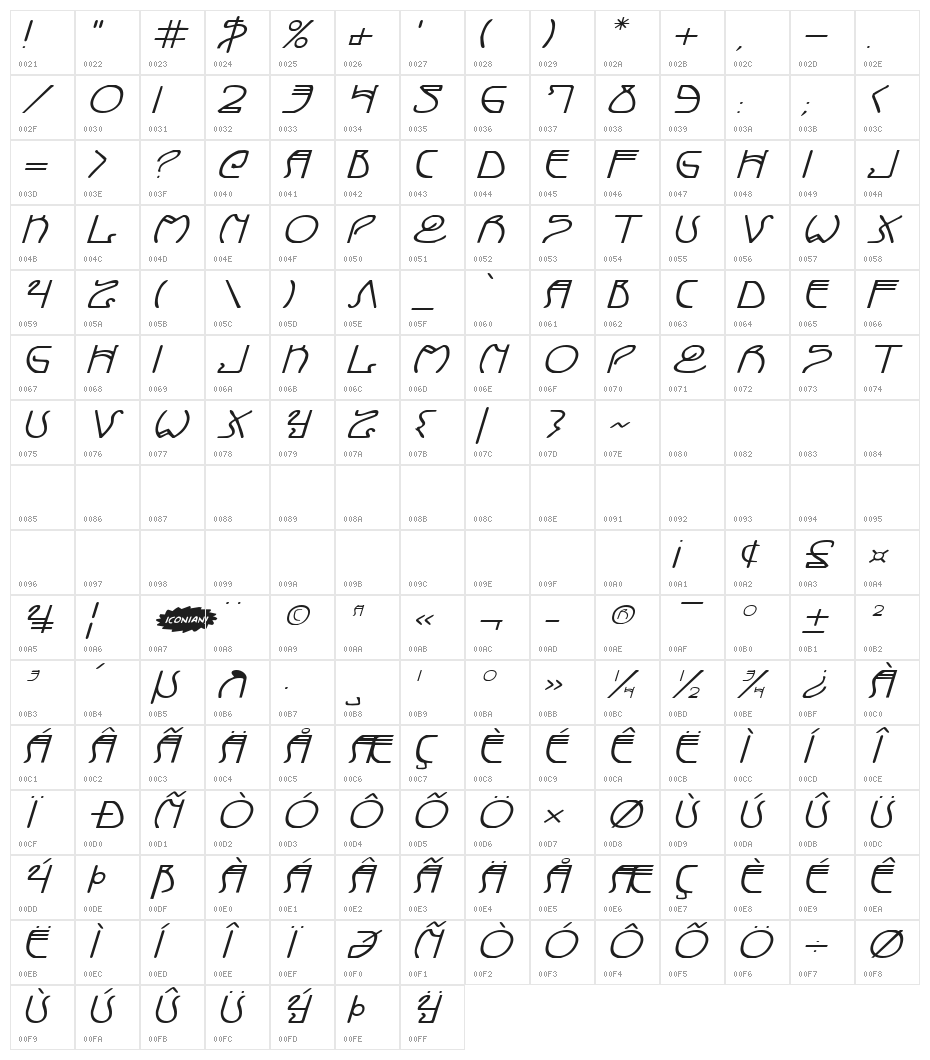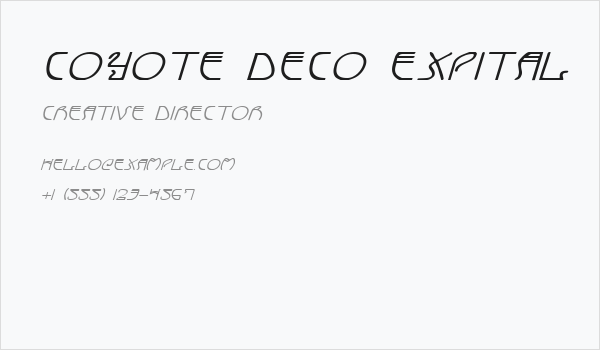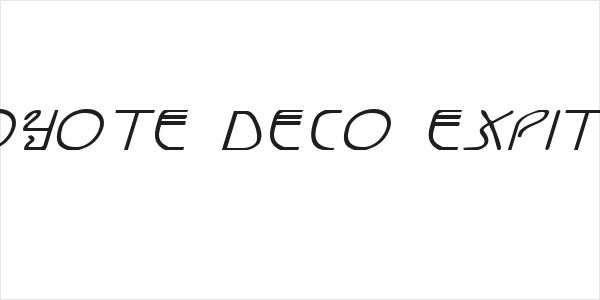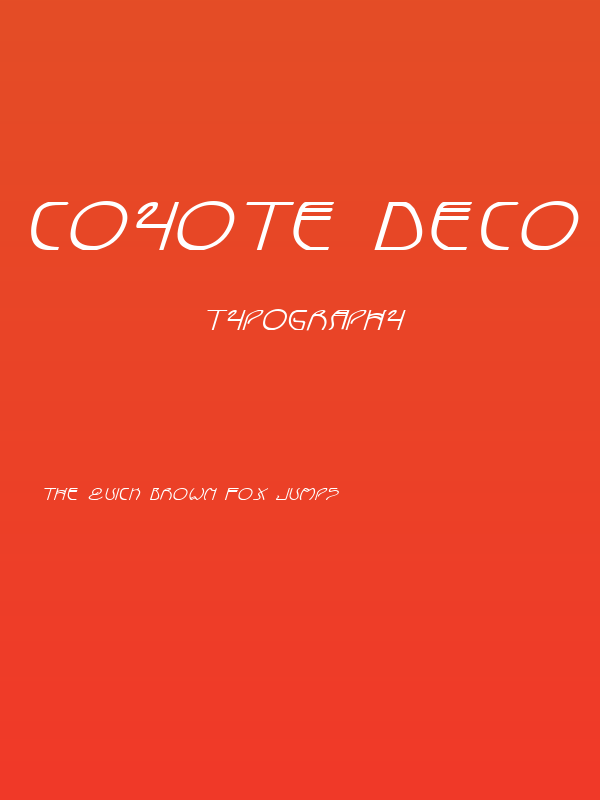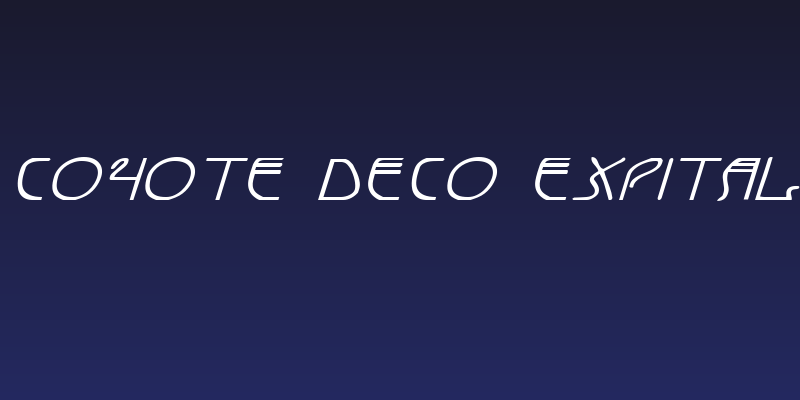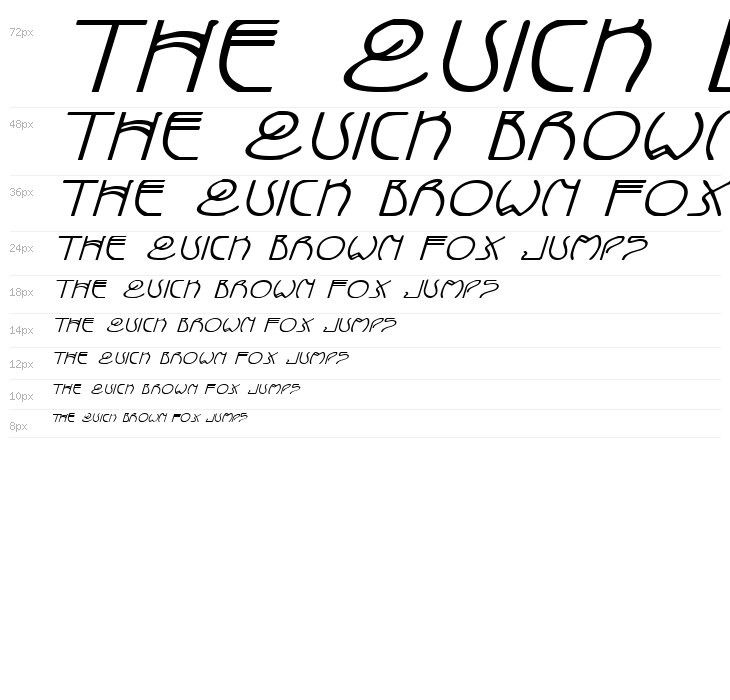
Coyote Deco ExpItal Font
Coyote Deco ExpItal Description
This font features a distinctive and dynamic style with a modern twist. The characters are elongated and slightly slanted, giving an italicized appearance that adds a sense of motion and energy. The strokes are clean and consistent, with a medium contrast that balances readability with artistic flair. The uppercase and lowercase letters maintain a cohesive design, while the numerals and special characters integrate seamlessly into the overall aesthetic. This font's unique geometric shapes and angular lines make it stand out, offering a contemporary yet retro feel.
Proposed ProjectsIdeal for branding, posters, and modern design projects that require a bold and stylish typeface.